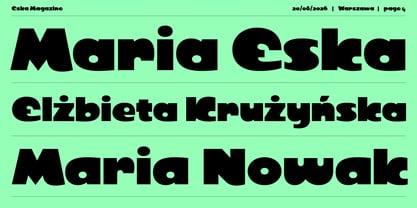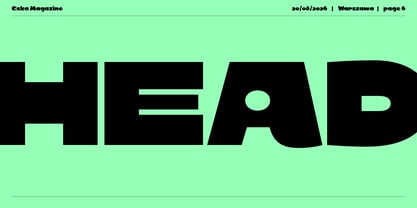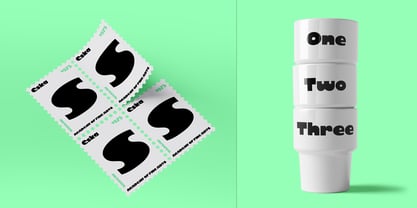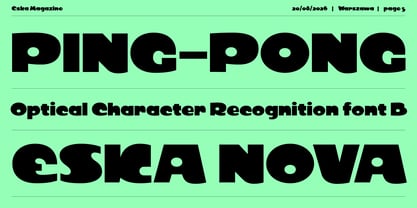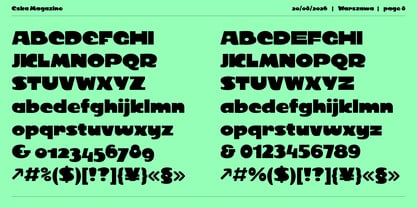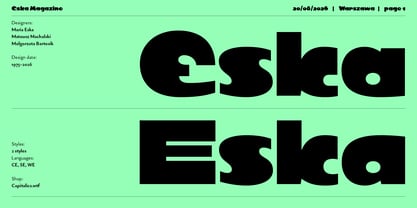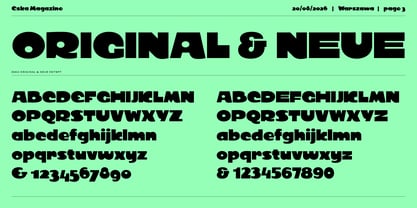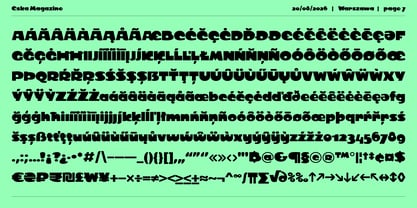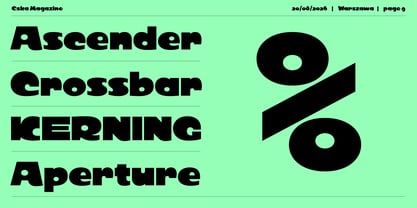
Eska
by Machalski
The Eska display typeface was created in 1975 during a course led by Roman Tomaszewski at the Academy of Fine Arts in Warsaw. It was designed by Maria Eska, then a fifth-year student, and was originally named Rugby. In 2025, to mark the typeface’s 50th anniversary, Mateusz Machalski began working on its digitization. Alongside the “Original” version, the project also introduced Eska „Neue”, a contemporary reinterpretation of Maria Eska’s design. Małgorzata Bartosik also contributed to the digitization process.
Designers: Mateusz Machalski
Foundry: Machalski
Dr hab. Mateusz Machalski, Associate Professor (b. 1989) – Vice-Rector for Artistic Affairs at the Academy of Fine Arts in Warsaw. Designer, typographer, lecturer and researcher specializing in visual communication and graphic design. He graduated with Rector’s Honours from the Faculty of Graphic Arts at the Academy of Fine Arts in Warsaw (2009–2014), where he currently teaches at the Multimedia Artistic Creation Studio. Named Designer of the Year 2019 at the Polish Graphic Awards, he has been repeatedly awarded in national and international competitions, including KTR, Ascender 2018 – Type Directors Club New York, MUSTHAVE, The DieLine, Red Dot Design, The Best of Design 2018 – Klub Twórców Reklamy, and Animator 2020 – DESIGN ALIVE. He is a five-time recipient of the Polish Ministry of Culture’s scholarship, a laureate of the Ministry of Science and Higher Education’s scholarship for outstanding young researchers, and of the “Young Poland” programme by the National Centre for Culture. He was awarded the Centennial of Regained Independence Medal by the President of Poland. He is a curator and member of the programme board of the International Poster Biennale in Warsaw, and Art Director of the magazines newonce paper and Warsawholic. He has created more than 80 typeface families – including numerous corporate and multi-script designs – and over 200 visual identities for companies, institutions and cultural events. His fonts are distributed through platforms such as Google Fonts, Adobe and Monotype, and his clients include leading Polish and global brands. He has led teams digitizing key works of Polish typography, including “Półtawski Nowy”, “BRYGADA 1918” (launched at the Presidential Palace), and carried out the long-term “Bona Nova” project together with Andrzej Heidrich – the designer of Polish banknotes. He co-created Typoteka – the first Polish index of typography (1474–2024). Co-founder of the first Polish type foundry – Capitalics. He is also the author of numerous texts, articles and exhibitions on graphic design and visual culture, as well as the “Creative Typography” course published by Design Practice. He conducts research projects, workshops and lectures at universities and conferences in Poland and abroad.